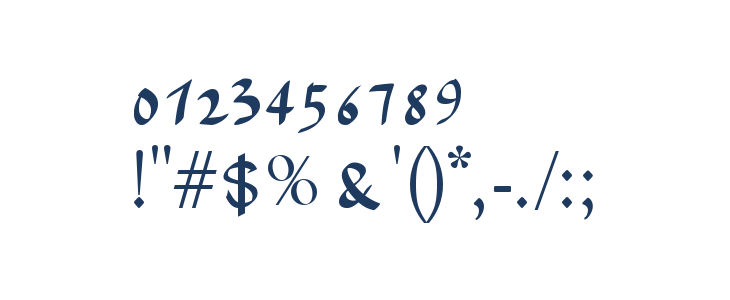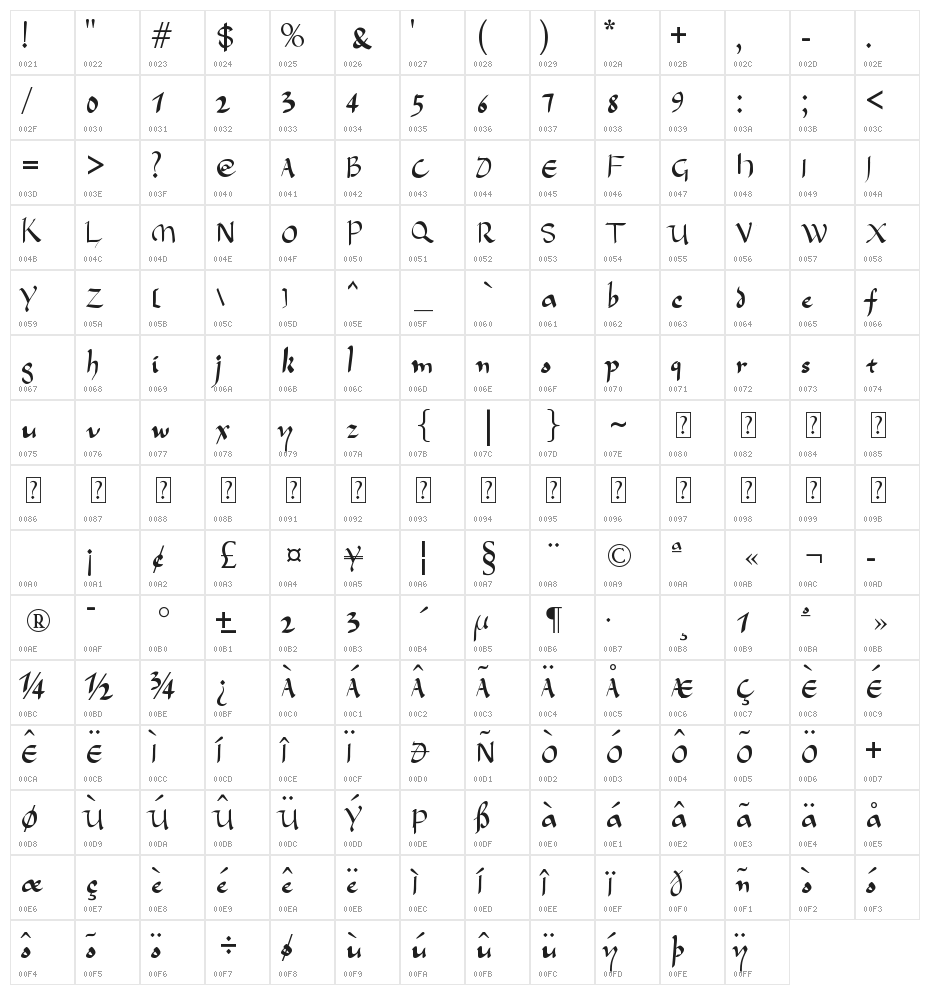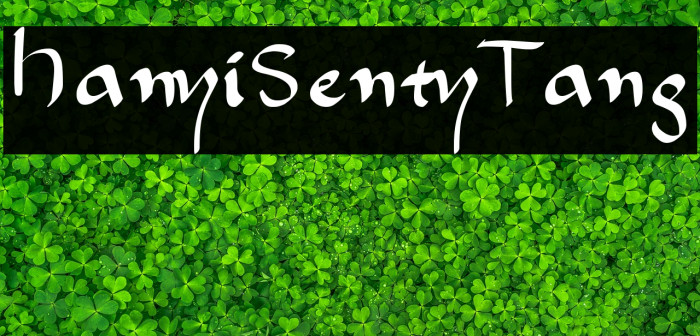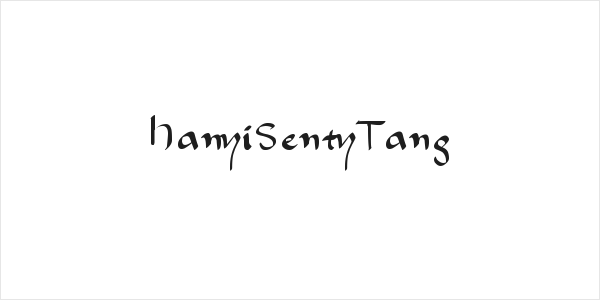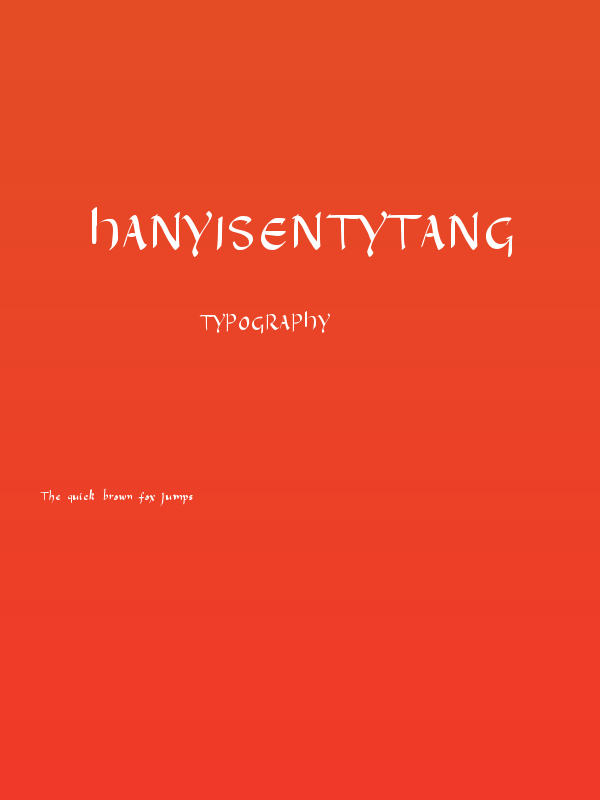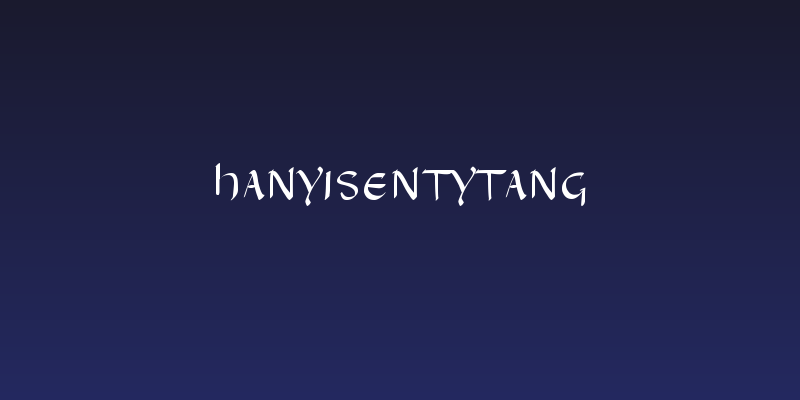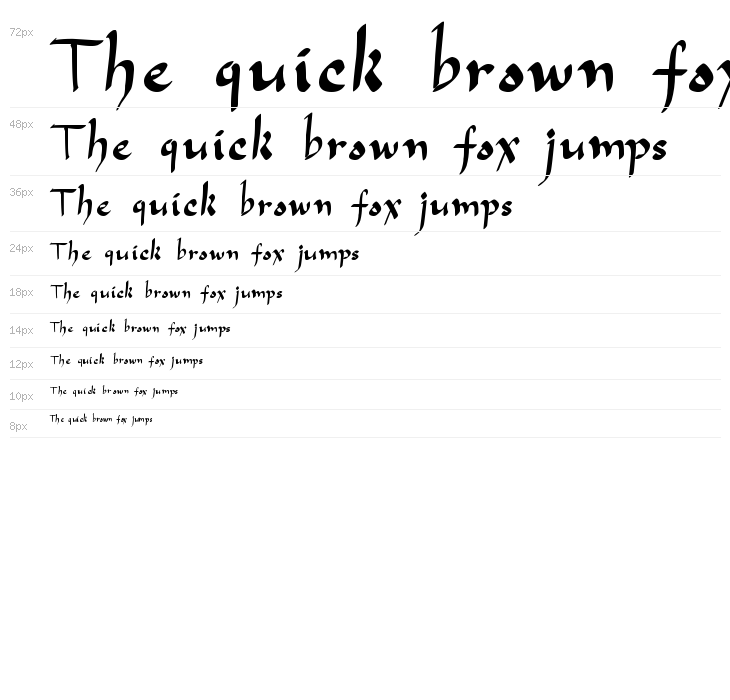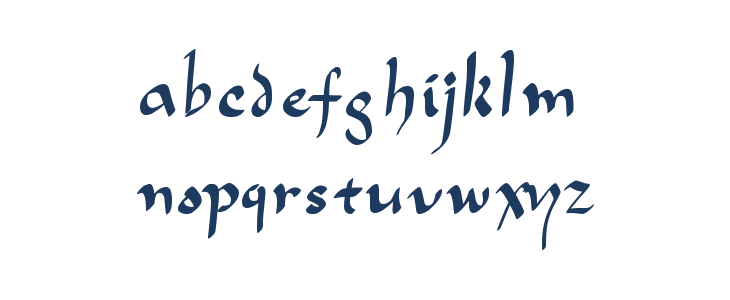
HanyiSentyTang Font
HanyiSentyTang Description
This font features a dynamic and flowing script style, characterized by its elegant and artistic strokes. The uppercase letters exhibit a distinctive flair with varying stroke widths, giving them a lively and expressive appearance. The lowercase letters maintain a consistent style, with smooth curves and a slightly italicized slant, enhancing the overall fluidity. Numbers are bold and clear, maintaining the artistic theme. Special characters are uniquely designed, complementing the font's overall aesthetic. This font's style is reminiscent of calligraphy, making it suitable for creative and decorative purposes.